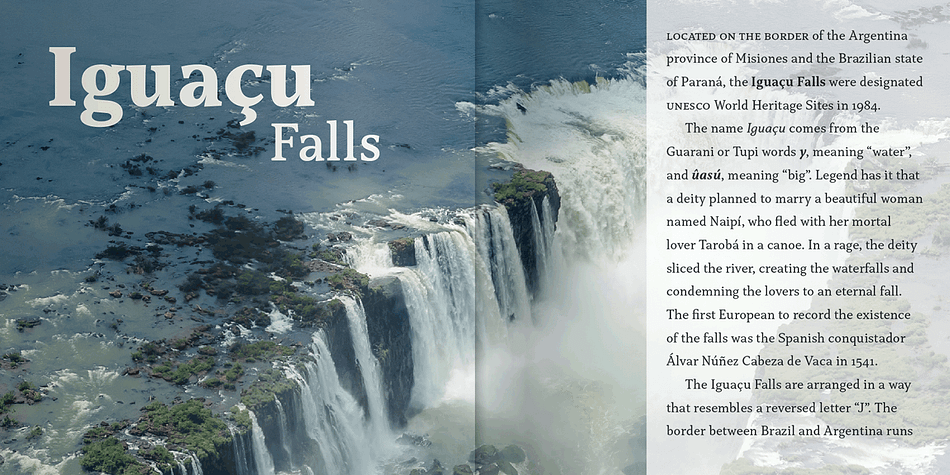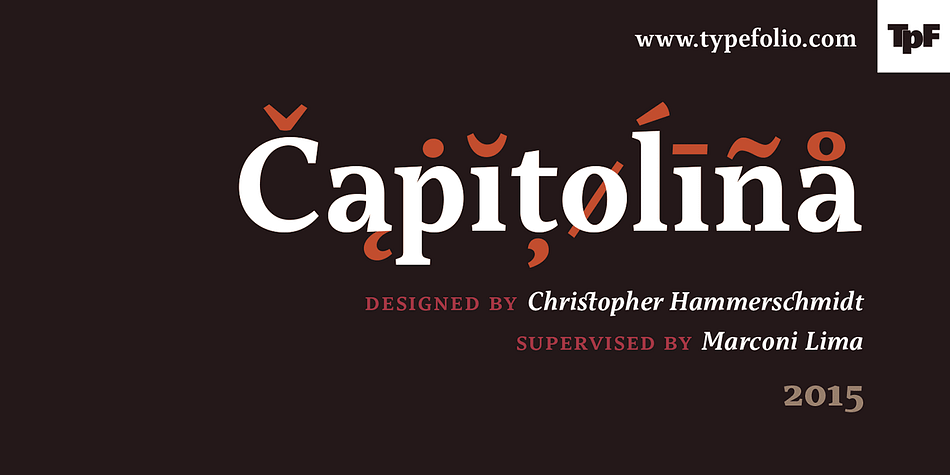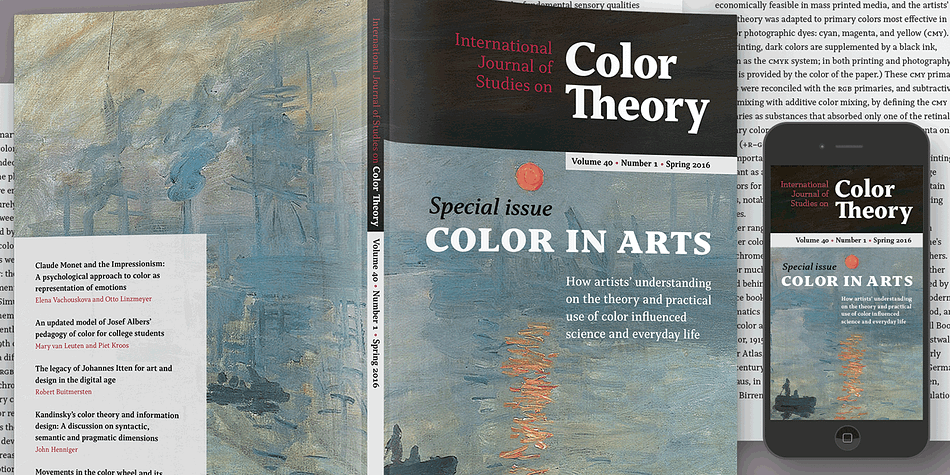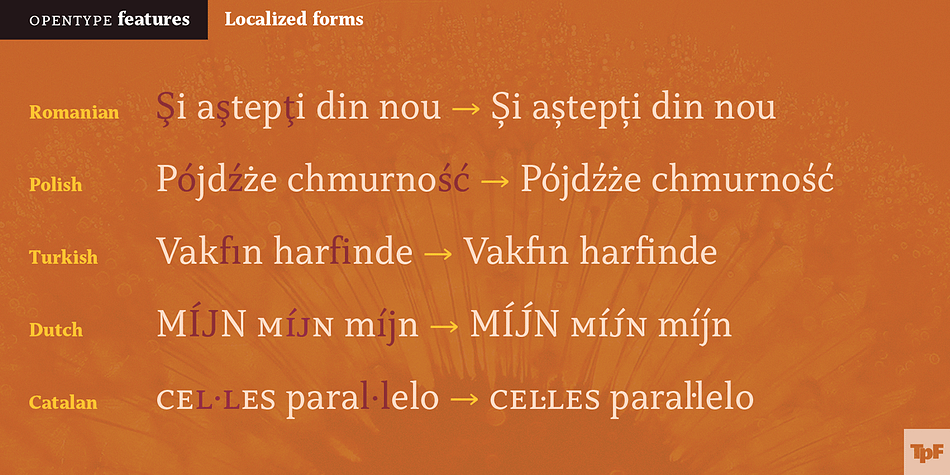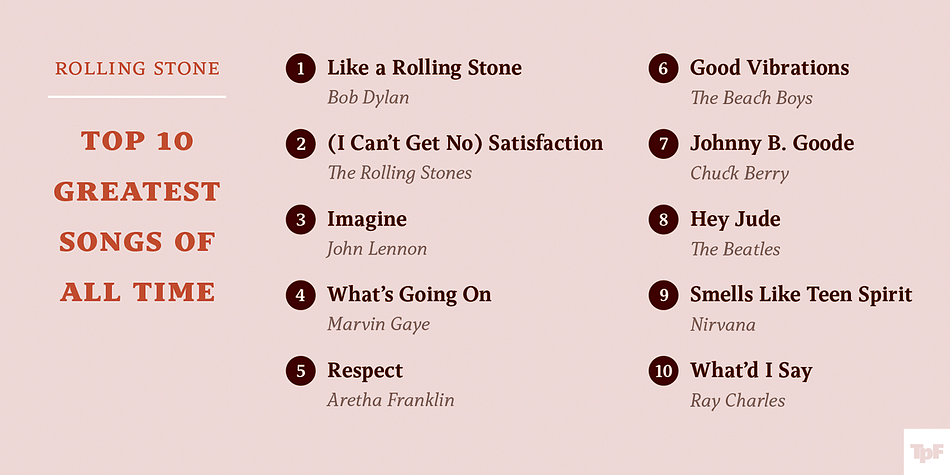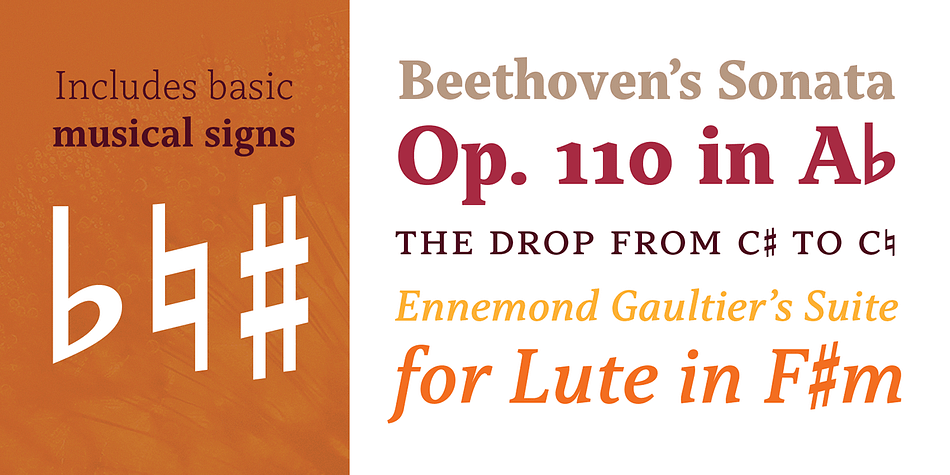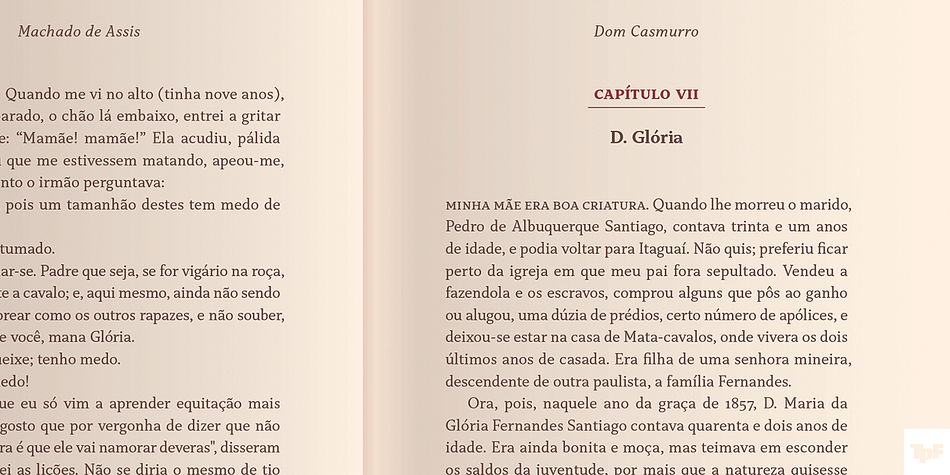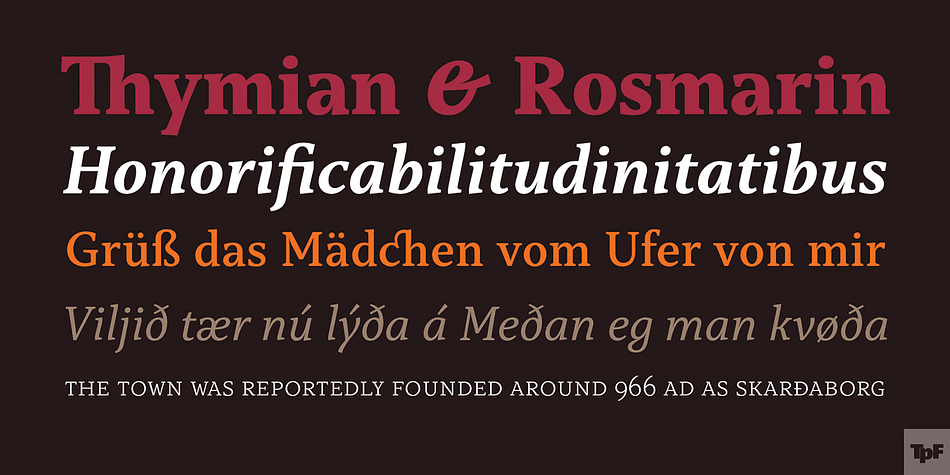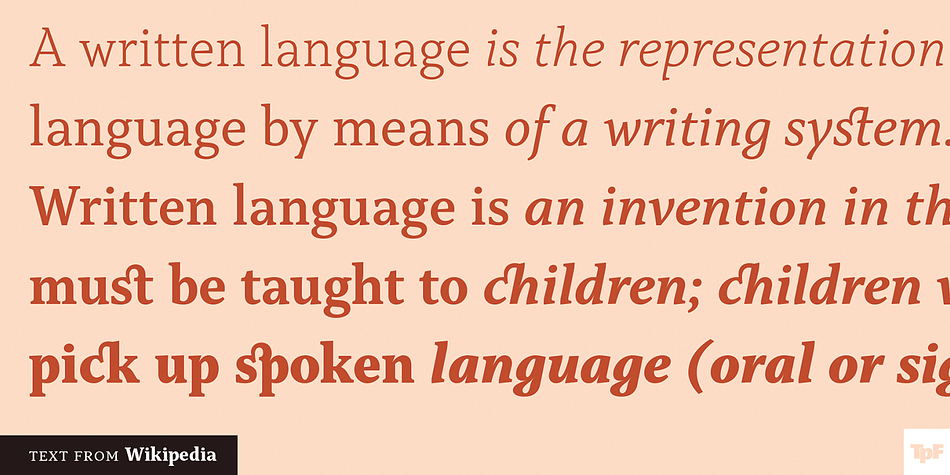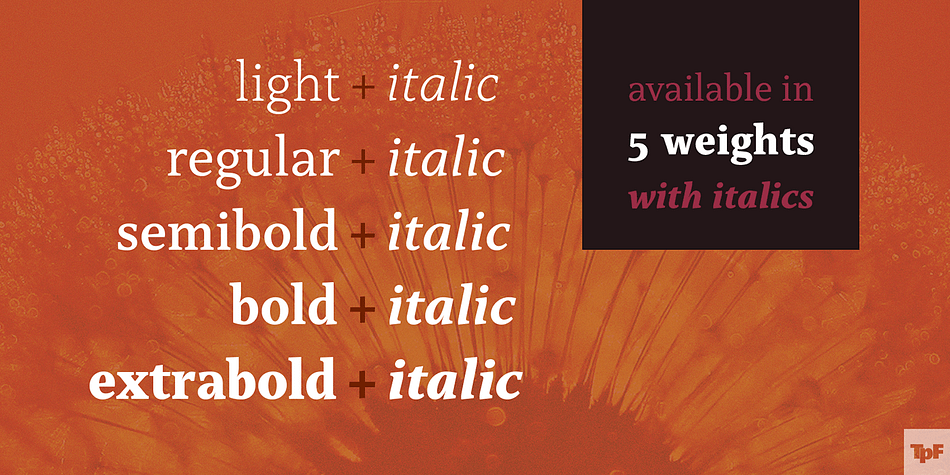
Designed by Christopher Hammerschmidt and Marconi Lima, Capitolina is a serif font family. This typeface has ten styles and was published by Typefolio Digital Foundry.
Capitolina is a family of 10 typefaces with a contemporary design style, based on different historical models. The original shape of serifs was a reference to 19th century’s Clarendon types though this inspiration remains as a subtle feature of the final design. Even subtler are the calligraphic influences, better noticed in the italics.
The result is a set of typefaces that look more ‘constructed’ than ‘written’, referring to a rationalist style. However, it has a distinct approach to the aesthetic treatment of typographic forms that resembles the humanist tradition.
Available in five weights of roman and italic types, Capitolina has a wide glyph palette that contains 800 glyphs in each font. Besides supporting basic Latin, western, central, and southeastern European sets, it has several OpenType features, such as case-sensitive forms, small capitals, ligatures, localized forms, number forms, fractions and more.
Capitolina is, therefore, a great choice for projects in editorial design and other related applications.